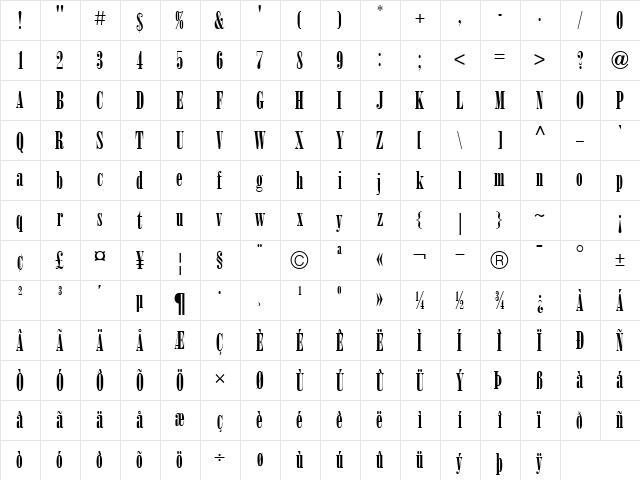
Onyx ICG Regular
Design Context for Onyx ICG Typeface
Onyx ICG is a composed and adaptable typeface that performs quietly and consistently across a wide range of design contexts.